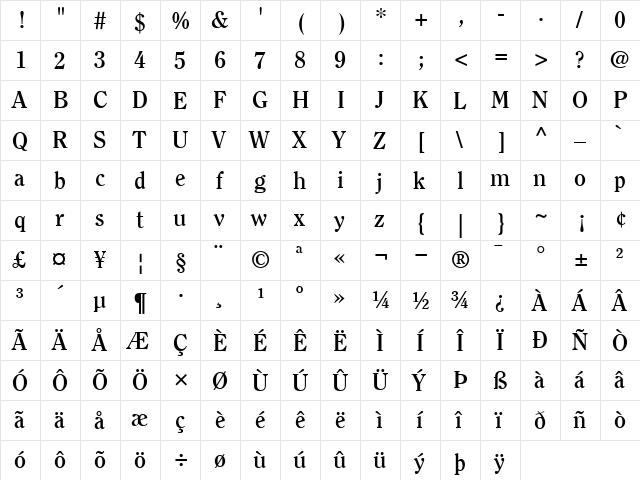
ITCClearface Bold Font Preview
ITCClearface Bold
Design Context for ITCClearface Typeface
ITCClearface is a composed and adaptable typeface that performs quietly and consistently across a wide range of design contexts. The heavy weight commands attention and anchors typographic hierarchies.
Pro Tip: Pair ITCClearface with a font of contrasting weight or personality to build a more expressive typographic hierarchy.